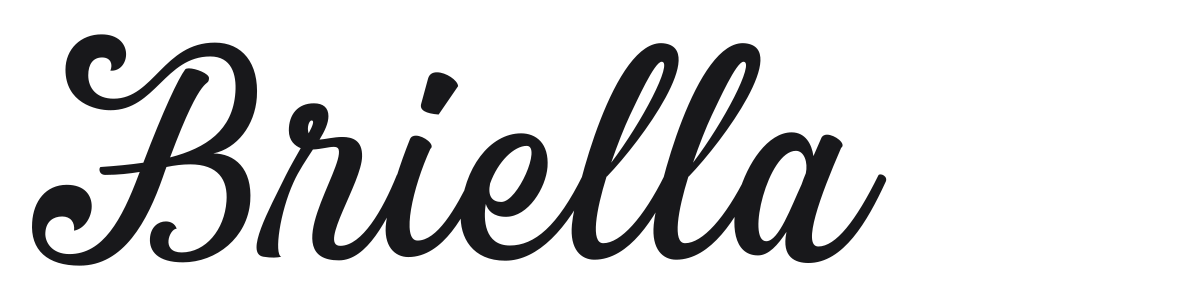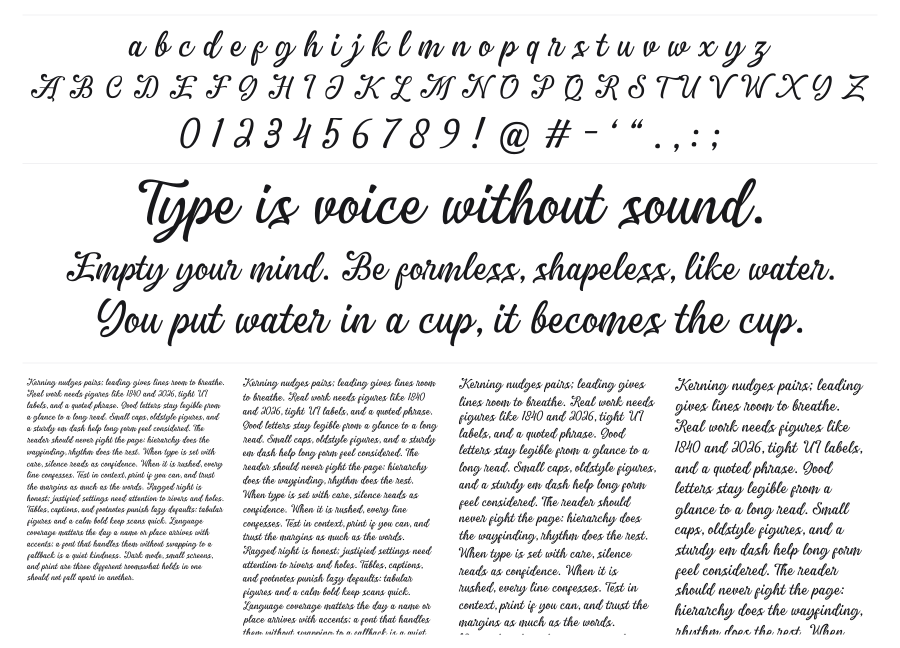
Briella
by Letterhend Studio · Website
Briella is a bold casual script with flowing connected strokes and generous looping details that give it a lively, hand-drawn energy. Moderate stroke contrast between thick downstrokes and thin upstrokes keeps it feeling natural rather than stiff. It works well for branding, packaging, and any project that needs a warm, expressive handwritten touch.